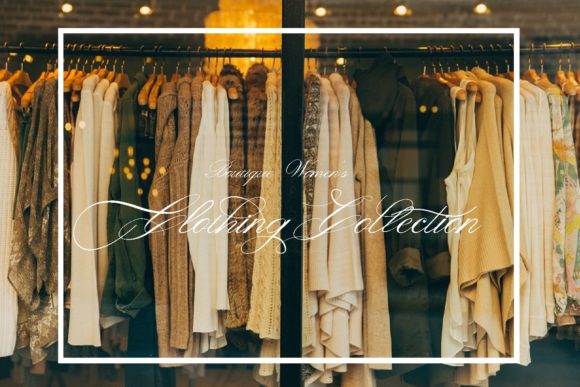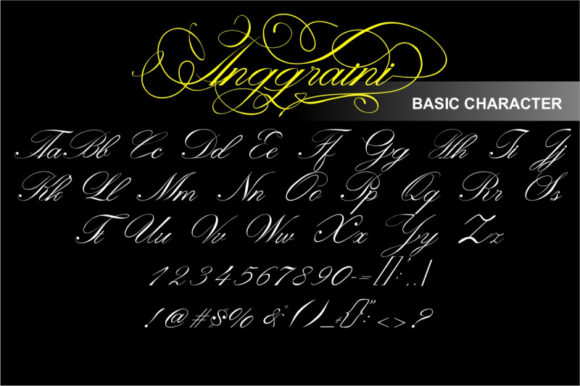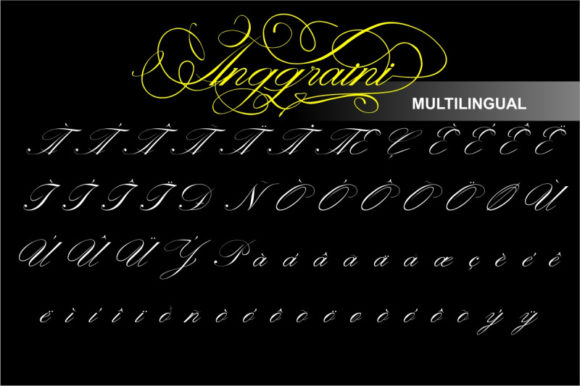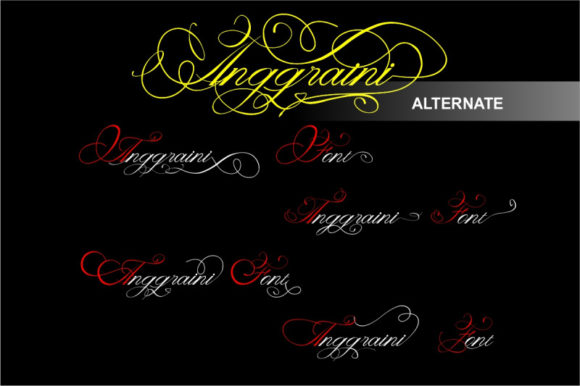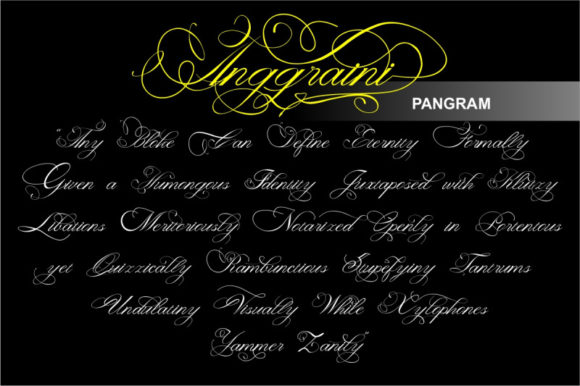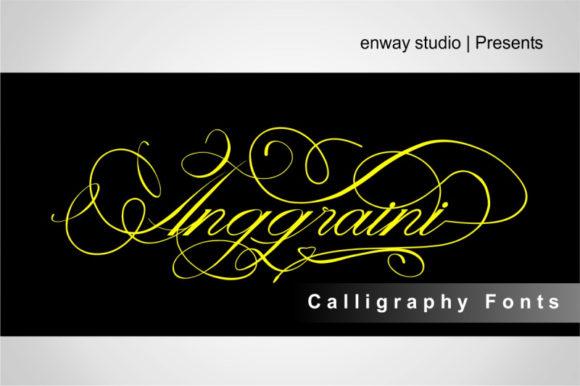
The Ultimate Guide to Anggraini Font: Elevate Your Designs with this Stunning Handwritten Font
I’ll never forget the moment I stumbled upon the Anggraini font. I was working on a project for a client who wanted a modern, yet elegant look. I had spent hours browsing through font libraries, but nothing seemed to fit the bill. That was until I saw Anggraini – a beautiful, charming, and modern handwritten font that instantly caught my attention. ✨
As I explored the font, I realized that it was not just another pretty face. Anggraini is a game-changer, with its PUA encoding that allows easy access to all glyphs and swashes. In this article, I’ll share my experience with Anggraini, its features, and how to make the most of it in your designs.
An Honest Review of Anggraini Font
What I Love About Anggraini Font
• ✨ Unique and Modern Design: Anggraini has a distinct, modern look that sets it apart from other handwritten fonts.
• ✅ PUA Encoding: The font’s PUA encoding makes it easy to access all glyphs and swashes, giving you more creative freedom.
• 💫 Highly Versatile: Anggraini can be used for a wide range of design projects, from branding and advertising to packaging and more.
• 🎨 Great for Adding Personality: The font’s charming and elegant feel makes it perfect for adding a personal touch to your designs.
While Anggraini is an excellent font, there are a few things to keep in mind: ⚠️
• 🤔 Some Swashes May Not Work Well in All Contexts: While the font’s swashes are beautiful, they may not work well in all design contexts. Experiment with different combinations to find what works best.
• ⚠️ May Require Some Kerning Adjustments: As with any font, you may need to make some kerning adjustments to get the most out of Anggraini.
The Backstory of Anggraini Font
Anggraini was designed by a talented type designer who wanted to create a font that was both modern and elegant. The font’s unique design and PUA encoding make it a standout in the world of typography.
Font Name Anggraini Font
Author enway
Q: Is Anggraini a difficult font to use?
A: No, Anggraini is a user-friendly font that’s easy to use, even for those without extensive design experience.